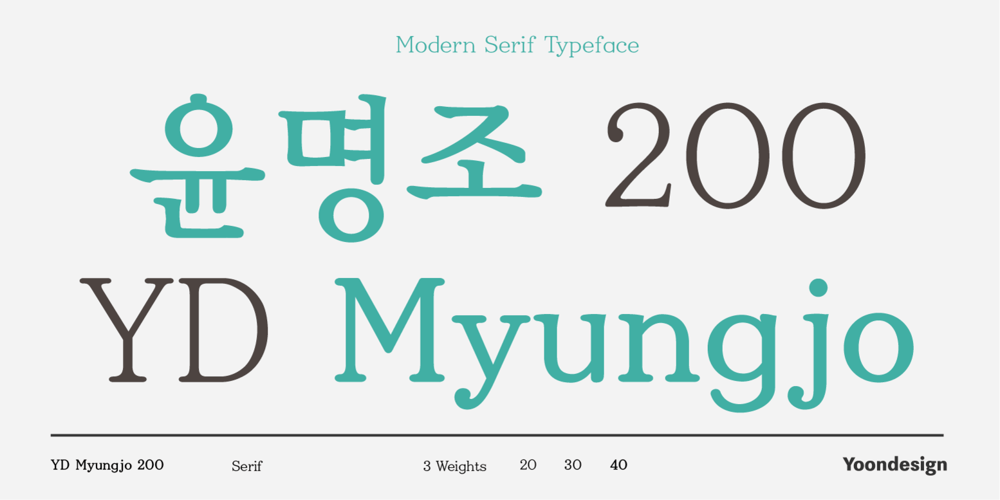
YD Myungjo 200
YD Myungjo 200 font
YD Myungjo 200 Font Family was designed by Yoon Design Team and published by Yoon Design. YD Myungjo 200 contains 3 styles and family package options. YD Myungjo200 Pro family is Korean fonts and is the most common font family up to the present in Korea. They are ranked first places in designer preference and customer preference. YD Myungjo200 Pro features a Serif typeface that is a classic transitional typeface with tall, clean characters. YD Myungjo200 Pro combines the aesthetic and functional qualities that make text type highly readable. This elegant humanist face is useful for the finest typography both for book text and display matter. This font family has 3 weights and also contains traditional Chinese characters.